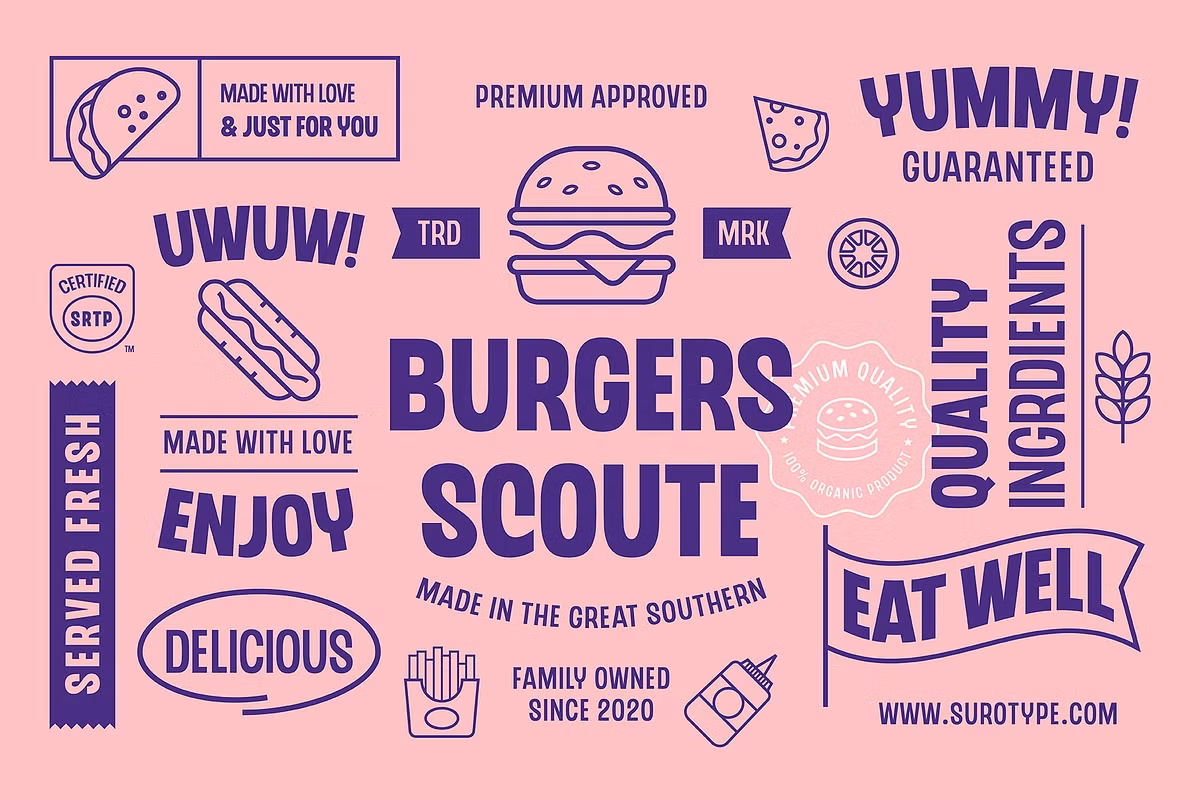
Add a modern and stylish touch to your designs with CHEDROS Font Free Download. This sleek sans-serif typeface is designed for versatility and clarity, making it perfect for a wide range of applications such as branding, logos, editorial design, posters, and more.
CHEDROS features clean lines and balanced letterforms, offering a contemporary, professional aesthetic. It includes uppercase and lowercase letters, numerals, punctuation, and multilingual support, providing you with full creative flexibility for testing various design layouts.